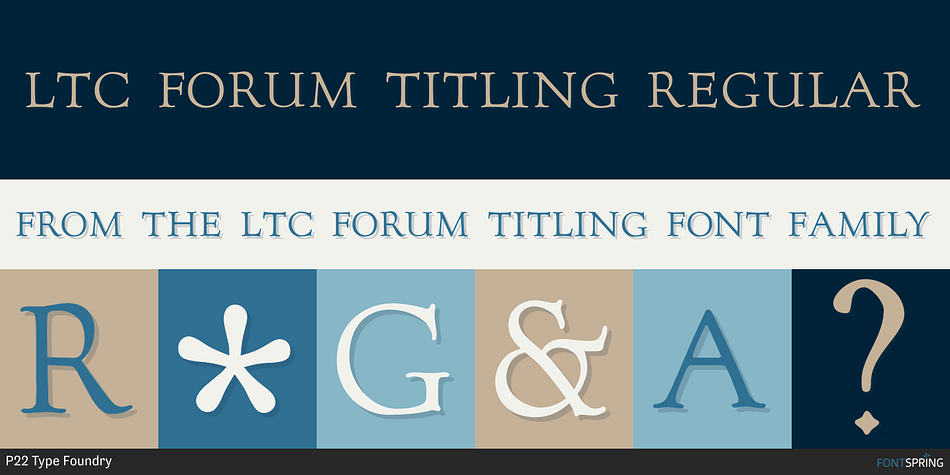
LTC FORUM TITLING REGULAR
Designed by Frederic W. Goudy and Colin Kahn, LTC Forum Titling is a serif font published by P22 Type Foundry.
Forum was originally designed by Frederic Goudy in 1911. It was intended to be the heading font used for a book set in Kennerley. Based on inscriptional Roman stone cut capitals, this face is true to the early Roman forms which did not have a lower case. Forum exemplifies the classic Roman letterform at its finest.